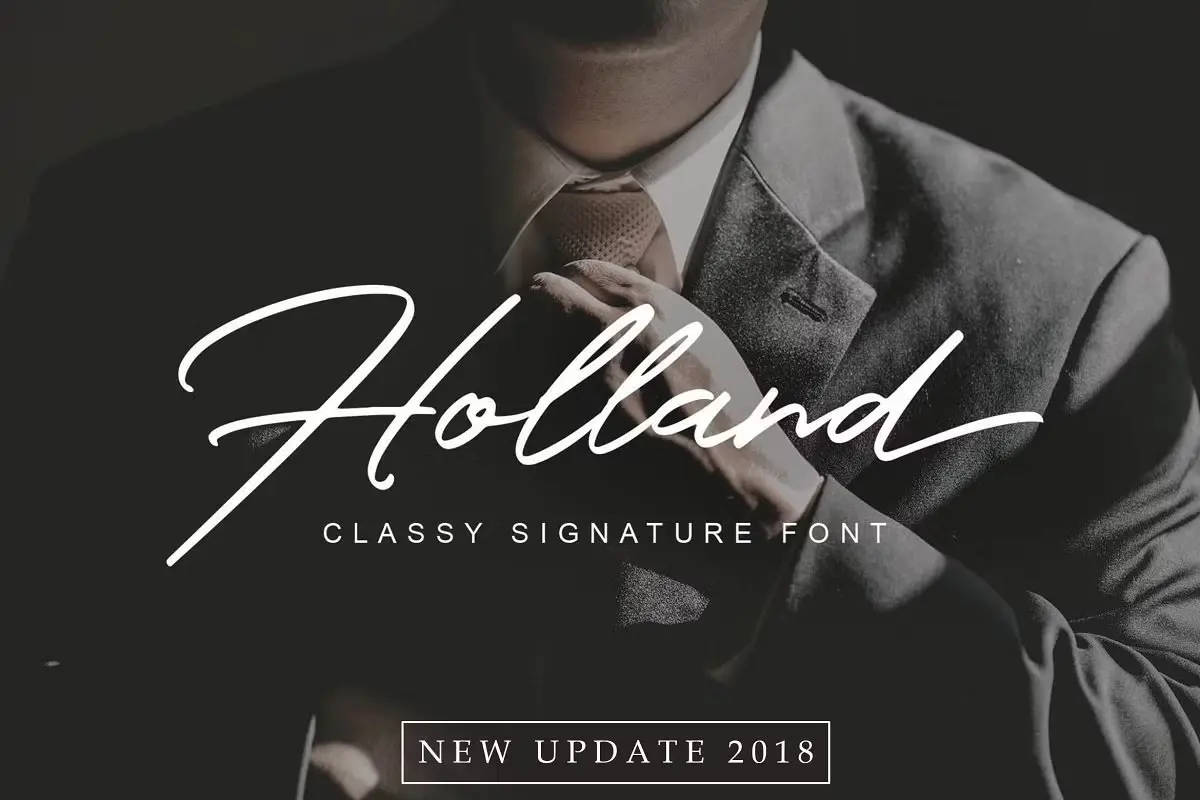
Holland Script Font is a stunning high-quality typeface created by Lettersiro Co, available for purchase on the CreativeMarket site or as a free download for those looking to elevate their design projects. This modern script font stands out for its elegant and versatile design, making it a perfect choice for a variety of creative applications. Whether you’re working on wedding photography branding, crafting a unique signature, or designing personalized invitations, Holland Script offers a seamless blend of simplicity and sophistication. Its clean yet intricate structural design ensures that it leaves a lasting impression, making it a favorite among designers and creatives alike.
The beauty of Holland Script lies in its ability to adapt to both formal and casual contexts, adding a touch of modernity and charm to any project. Its fluid strokes and balanced proportions make it ideal for creating eye-catching logos, stylish social media posts, or even elegant product packaging. The font’s versatility extends to digital and print media, ensuring consistent quality across different platforms. With its timeless appeal and unique character, Holland Script is more than just a font—it’s a tool that empowers designers to bring their creative visions to life with grace and professionalism. Whether you’re a seasoned designer or a beginner, this typeface is a valuable addition to your font collection.
Holland Font Free Script